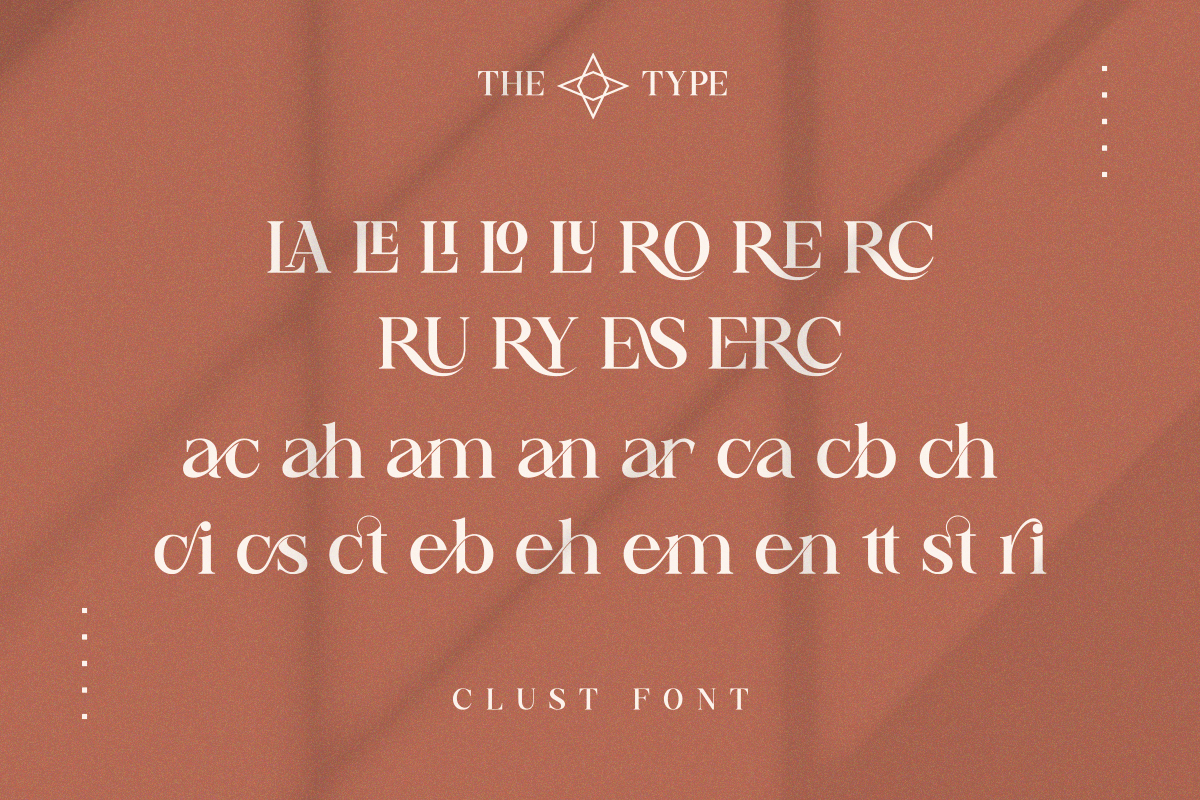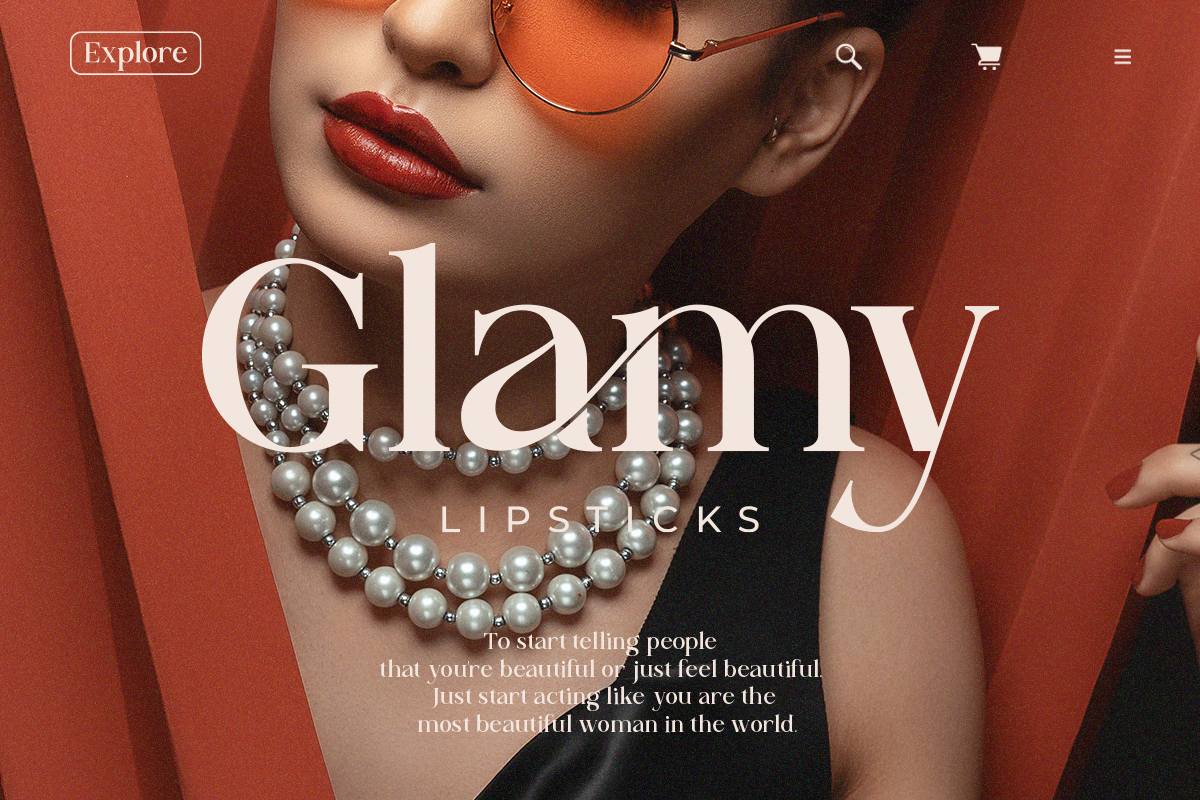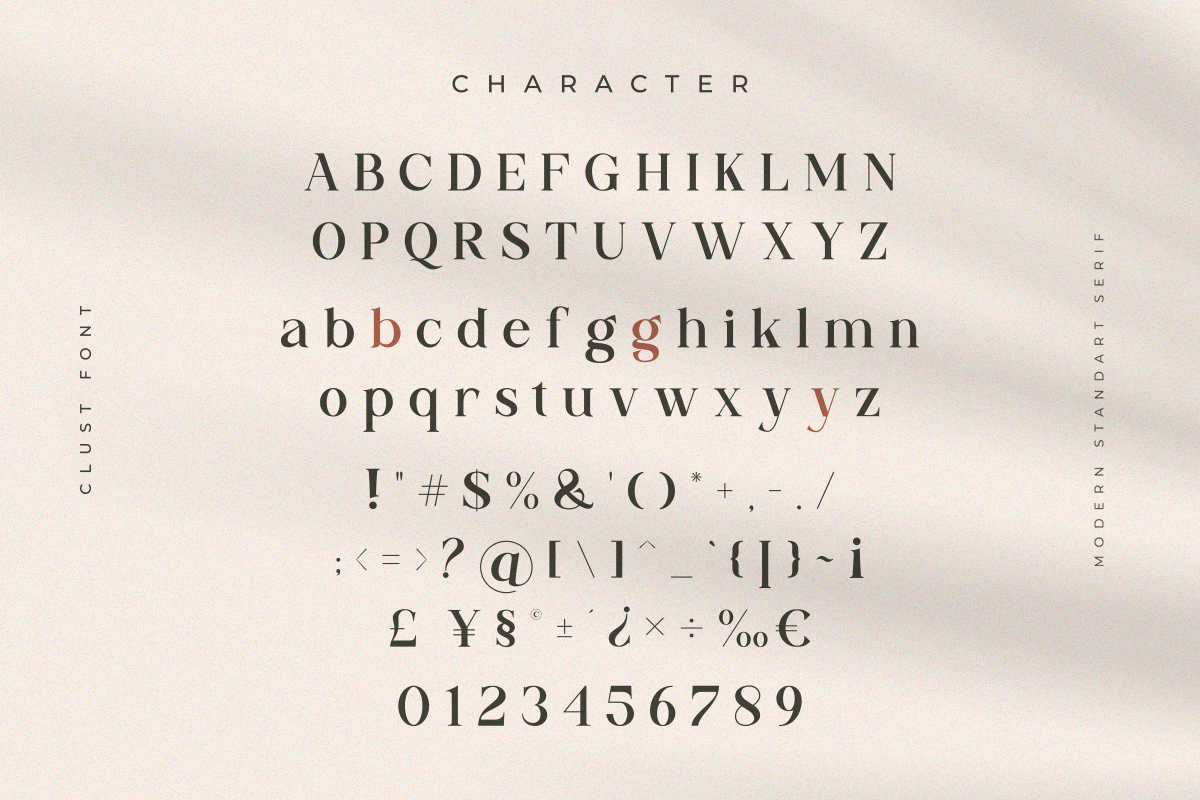
Clust - Modern Serif Elegant
Clust - a modern serif font Inspired by elegant and luxury. This font can look more classic (conservative) serif, which is perfect for texts. So same he can be more expressive, playing and more modern with alternative substitutes and ligatures, try to play with them and you will get the uniqueness in your project.
Following multilingual support: ÀÁÂÃÄÅĄÇĆÈÉÊËĘÌÍÎÏÐÑŃŁÒÓÔÕÖØÙÚÛÜŚŠŸÝŹŻŽßàáâãäåçèéêëìíîïðñòóôõöøùúûüýÿąćęłńśšźżž